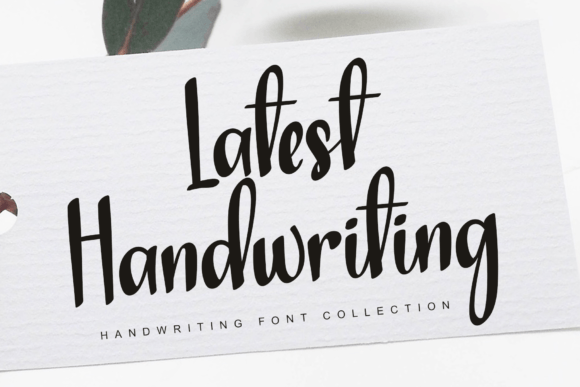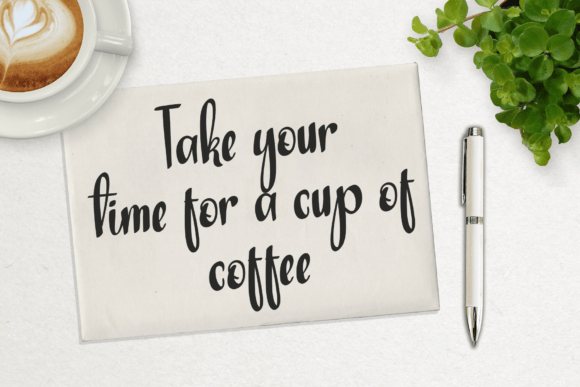
About Latest Handwriting Font
Latest Handwriting, as its name suggests, is a sweet, romantic, and beautiful script font that adds a personal touch to your designs. The font features beautiful curves in each letter, enhancing its overall aesthetic and making it stand out in various applications.
This font is particularly well-suited for wedding invitations, where its romantic and handwritten style can contribute to creating elegant and memorable stationery. The graceful curves in each letter bring a sense of sophistication, making it a perfect choice for projects that require a touch of romance.
Additionally, Latest Handwriting is versatile enough to be used in a variety of design contexts. Whether you’re working on thank you cards, quotes, greeting cards, logos, or business cards, this font brings a handwritten charm that elevates the visual appeal of your projects.
The beauty of Latest Handwriting lies in its ability to convey a sense of authenticity and warmth. The handwritten touch adds a personal and human element to your designs, making them more relatable and engaging. In a world filled with digital communication, this font allows you to infuse your creations with a touch of handcrafted elegance.
The stunning curves in each letter contribute to the overall flow and harmony of the font, making it visually appealing and easy on the eyes. The careful design of Latest Handwriting ensures that it maintains its beauty and readability across different applications.
Whether you’re designing for print or digital media, Latest Handwriting is a font that can adapt to your creative vision. Its timeless and classic style ensures that it remains relevant for various design projects, standing the test of time.
In conclusion, Latest Handwriting is more than just a font; it’s a tool for adding beauty, romance, and a handwritten feel to your designs. With its sweet and romantic nature, along with its versatility, Latest Handwriting is a valuable asset for anyone looking to create visually appealing and emotionally resonant projects.